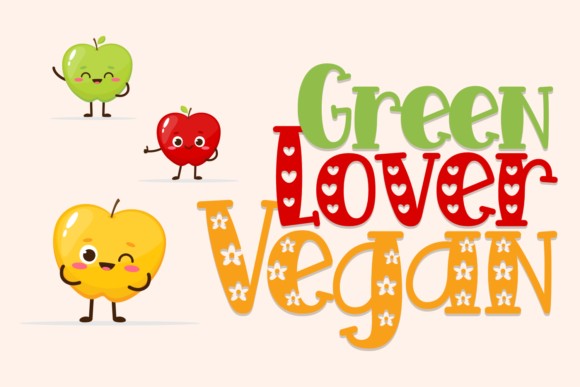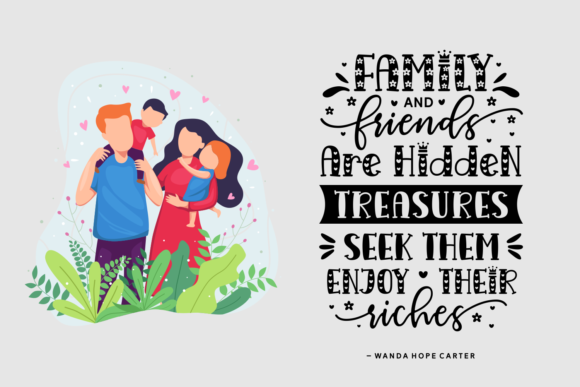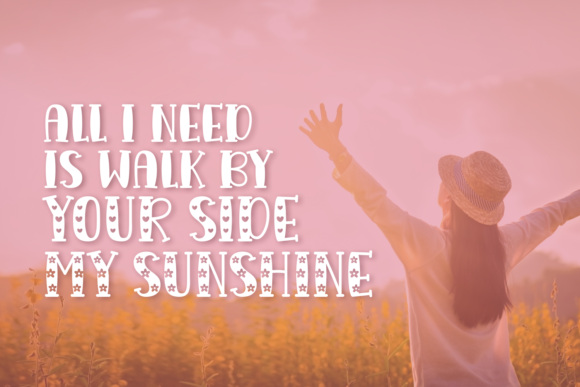
Introducing Emil Love Font: The Sweet and Playful Display Font for Your Creative Projects
Are you a designer or crafter looking for a font that can add a touch of sweetness and playfulness to your creative projects? Look no further than Emil Love Font! This delightful display font is designed to bring a sense of fun and joy to your designs, and with its PUA encoding, you can easily access all the glyphs and swashes you need to take your work to the next level.
What Makes Emil Love Font So Special?
Emil Love Font is a sweet, playful, and fun display font that is perfect for a wide range of creative projects, from handmade crafts to digital designs. Its unique and charming design makes it stand out from other fonts, and its PUA encoding ensures that you can easily access all the glyphs and swashes you need to create stunning designs.
One of the best things about Emil Love Font is its versatility. Whether you’re creating invitations, greeting cards, or social media graphics, this font is sure to add a touch of personality and whimsy to your designs. And with its easy-to-use glyphs and swashes, you can customize your designs to fit your unique style and vision.
The Benefits of PUA Encoding
So, what is PUA encoding, and how does it benefit designers and crafters? PUA (Private Use Area) encoding is a way of encoding fonts that allows designers to access a wide range of glyphs and swashes that are not available in standard fonts. With Emil Love Font, this means that you can easily access all the characters you need to create beautiful and unique designs.
The benefits of PUA encoding are numerous. For one, it makes it easy to create custom designs that stand out from the crowd. With Emil Love Font, you can mix and match glyphs and swashes to create one-of-a-kind designs that reflect your personal style. Additionally, PUA encoding ensures that your designs will look professional and polished, even if you’re not a skilled font designer.
How to Use Emil Love Font in Your Designs
- Experiment with different glyphs and swashes to create unique and personalized designs.
- Use Emil Love Font to add a touch of whimsy and playfulness to your designs.
- Combine Emil Love Font with other fonts to create stunning and eye-catching designs.
Emil Love Font is perfect for designers and crafters who want to add a touch of sweetness and playfulness to their creative projects. Whether you’re creating handmade crafts, digital designs, or social media graphics, this font is sure to bring a sense of fun and joy to your work.
With its easy-to-use glyphs and swashes, Emil Love Font is also a great choice for crafters who are new to font design. The font is easy to use and customize, making it perfect for anyone who wants to create beautiful and unique designs without a lot of hassle.
| Font Name | Emil Love Font |
In conclusion, Emil Love Font is a sweet, playful, and fun display font that is perfect for designers and crafters who want to add a touch of personality and whimsy to their creative projects. With its PUA encoding and easy-to-use glyphs and swashes, this font is sure to bring a sense of fun and joy to your designs. So why wait? Download Emil Love Font today and start creating stunning and eye-catching designs that reflect your unique style and vision!